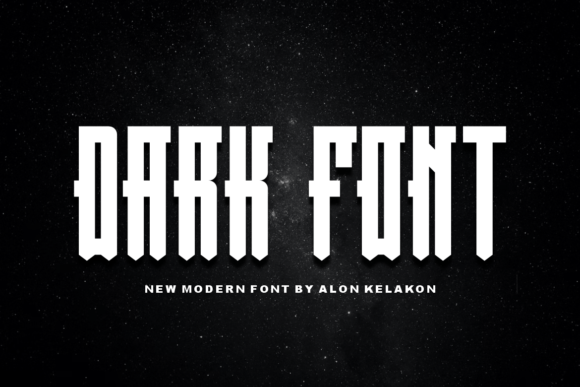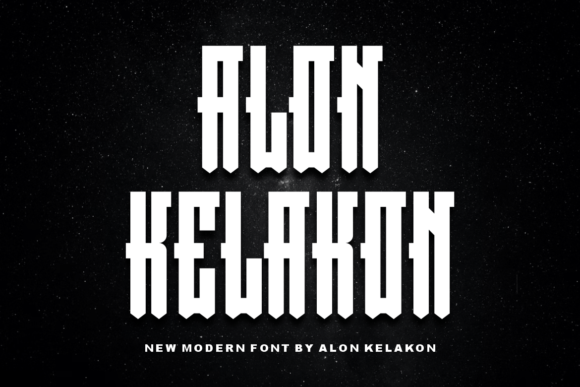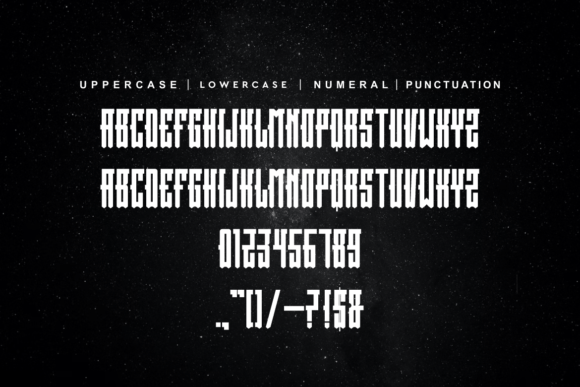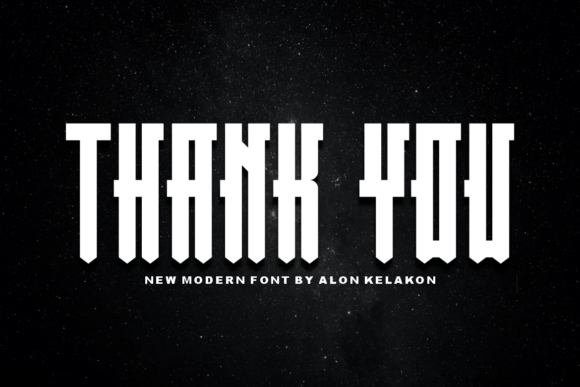
Megaword Font – Free Download
Introduction to Megaword Font
Megaword Font is perfect for your creative ideas, both formal and informal.
| 👤 Author | alonkelakon |
It has a modern style with a touch of creative ideas that is very suitable to be applied anywhere that requires creative ideas .
Key Features of Megaword Font
Why Choose Megaword Font?
Megaword Font offers exceptional quality and versatility, making it a valuable addition to your design toolkit. Whether you’re creating for personal projects or commercial use, Megaword Font delivers professional results.